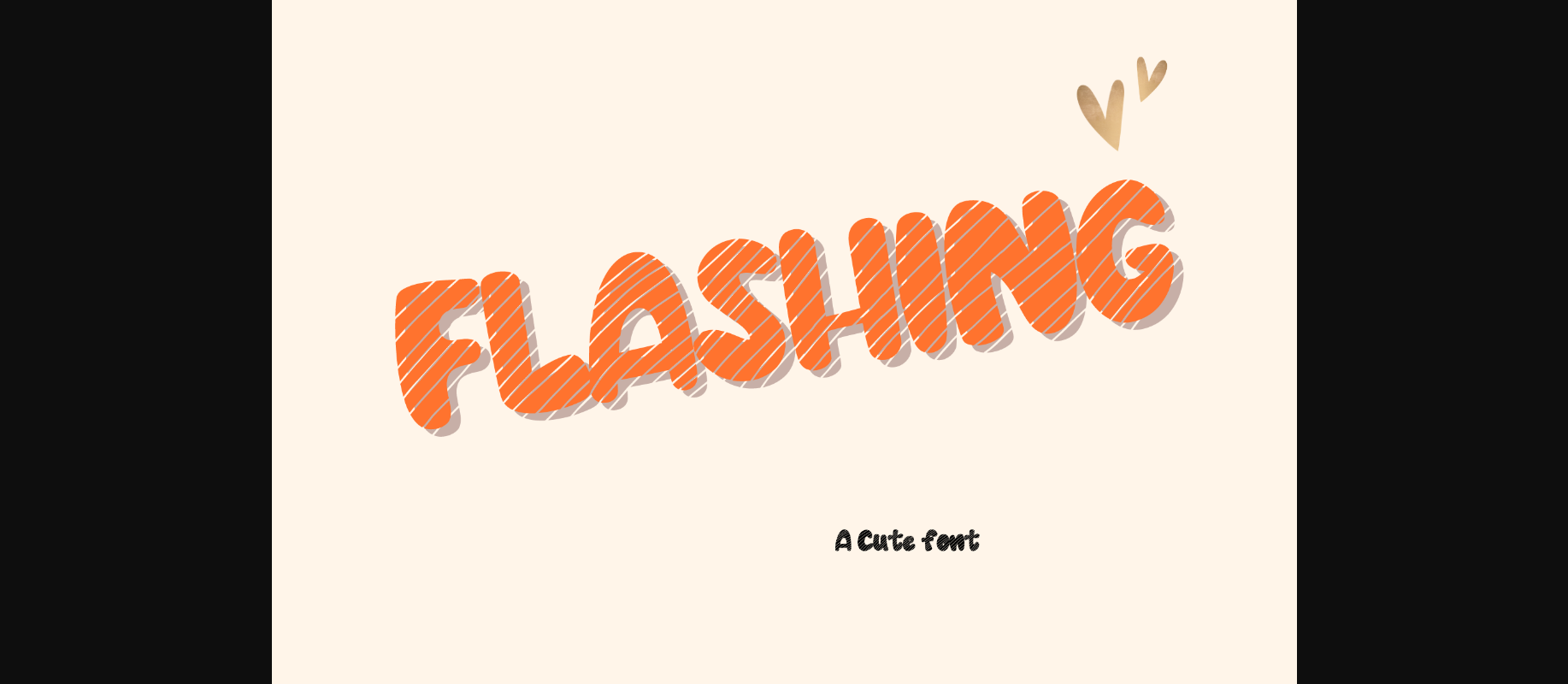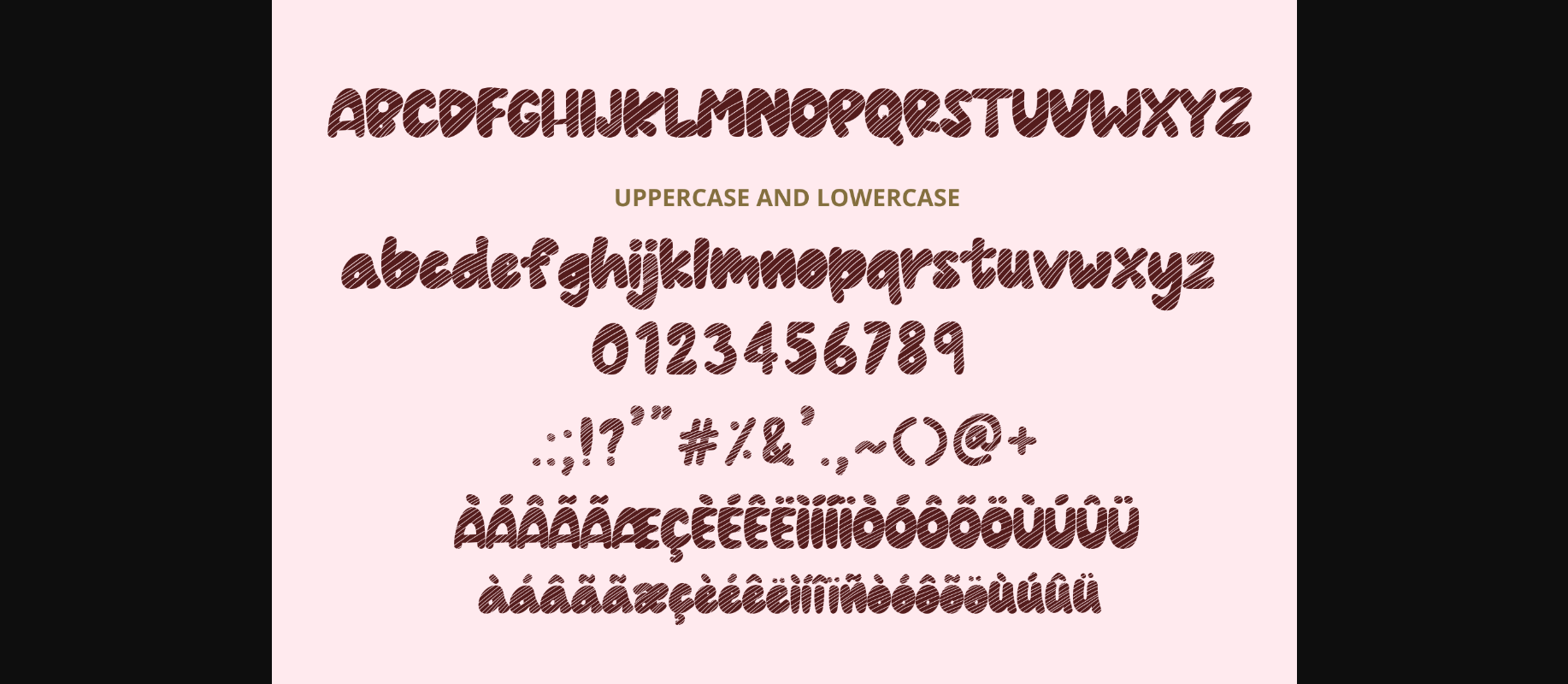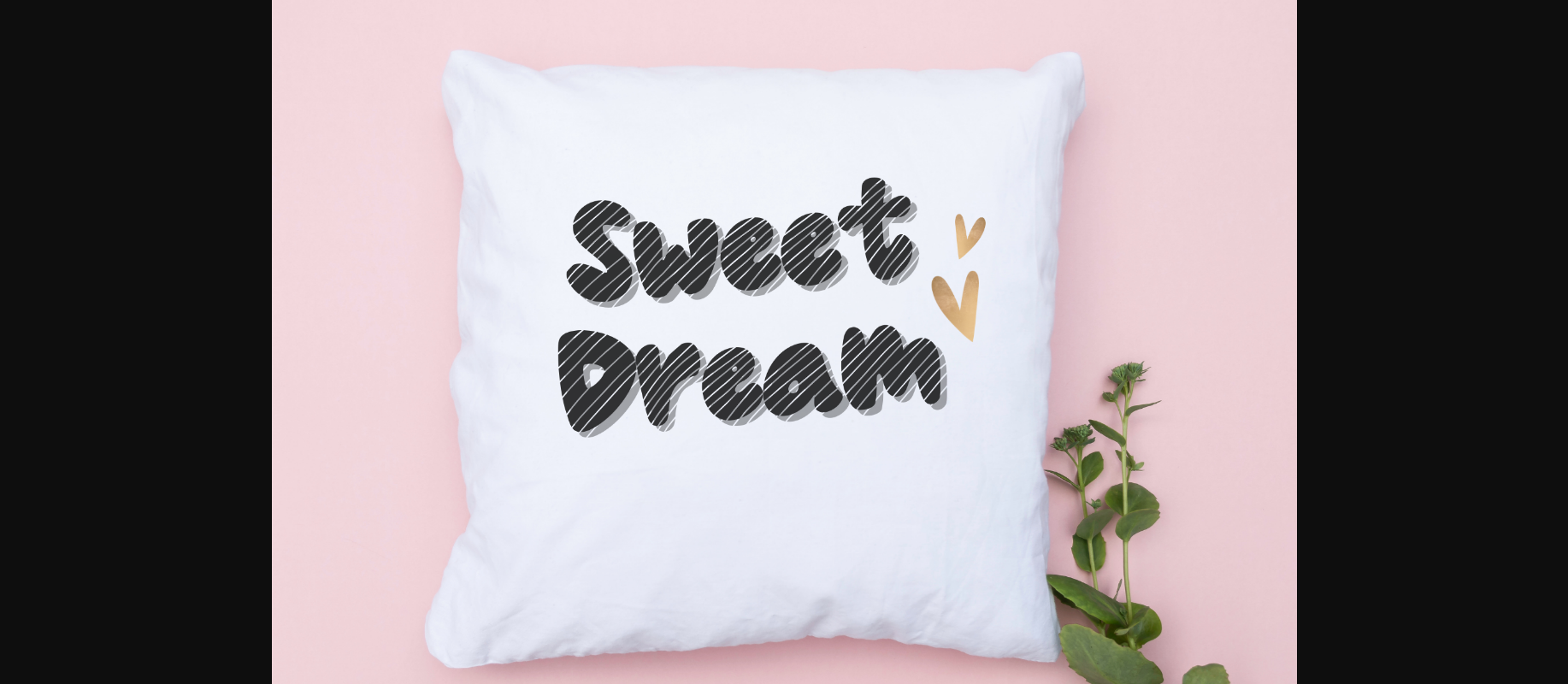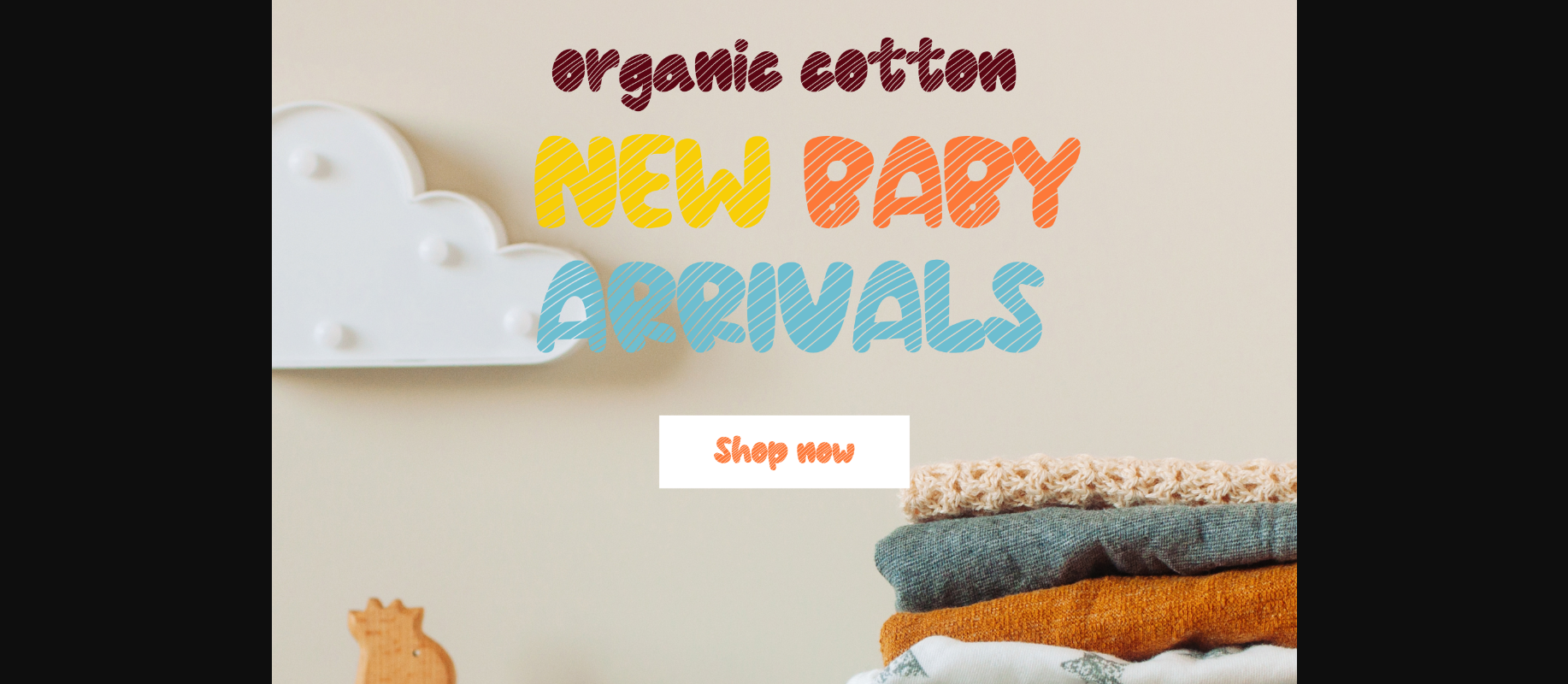
About Flashing Font
Flashing is a cute font. It will add elegance and class to any of your design projects. This font can be used to write various kinds of products according to the aspect of each need, projects, logos, wedding designs, social media posts, advertisements, product packaging, product designs, label, photography, watermark, invitation, stationery, and any other projects. and much more!